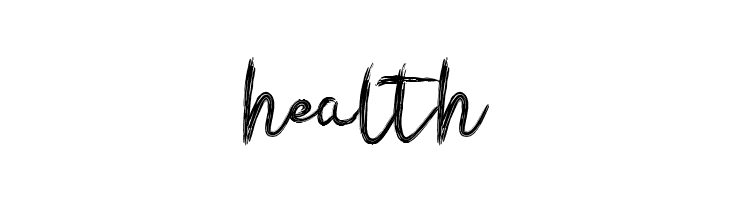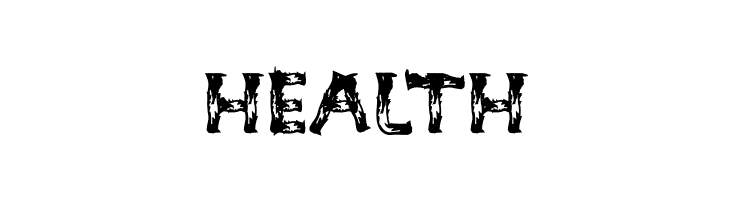
A bold, brush-style font with dynamic, energetic strokes.
A bold, brushstroke font with an energetic and artistic style.
A playful, hand-drawn font with doodle-like strokes and an artistic flair.
A playful, spooky font with a dripping slime effect, perfect for Halloween themes.
A dynamic brushstroke-inspired font with an artistic and textured appearance.
A bold, brush script font with expressive, artistic strokes.
A bold, playful font with icy, snow-covered characters for a winter-themed design.
A bold, brush-stroke font with a wild, artistic style.
A bold, brushstroke font with energetic and dynamic character designs.